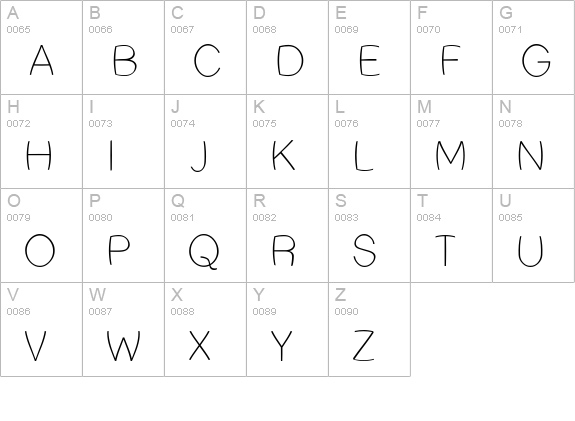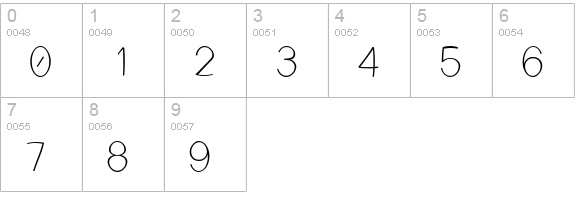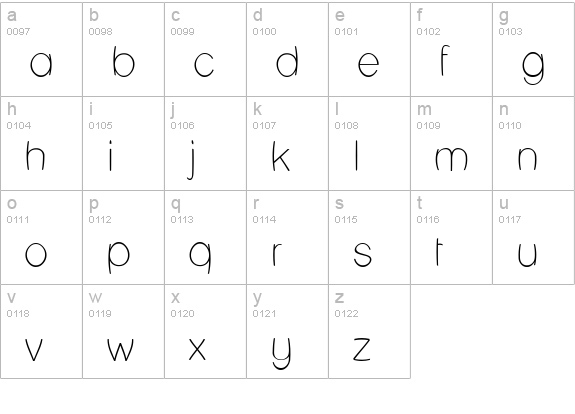
Lane Humouresque Font Details
Introducing the Lane Humouresque font - a whimsical and playful typeface that will add a touch of humor and charm to any design project. With its quirky and exaggerated letterforms, Lane Humouresque is perfect for those looking to inject a dose of lightheartedness into their creations. This font captures the essence of laughter and joy, making it ideal for a wide range of applications such as greeting cards, children's books, posters, and more. Its unique and distinctive characters will instantly catch the eye and bring a smile to anyone who encounters them. Lane Humouresque is not only creatively captivating but also conveniently accessible. This font is freely available to download at FontsMarket.com, allowing designers and enthusiasts alike to enjoy its delightful features without any hassle. Its availability as a free resource ensures that creativity knows no bounds, empowering everyone to bring their imaginative visions to life. The versatility of Lane Humouresque knows no bounds, as it effortlessly adapts to various design styles and contexts. Whether you're looking to create a cheerful and light-hearted design or add a touch of whimsy to a more serious project, this font will not disappoint. Its playful and lovable characters create a sense of levity and add a unique flair that is bound to captivate any audience. So, if you're searching for a font that embodies laughter, fun, and a touch of mischief, look no further than Lane Humouresque. Download it for free at FontsMarket.com and let your creativity soar with this enchanting typeface.